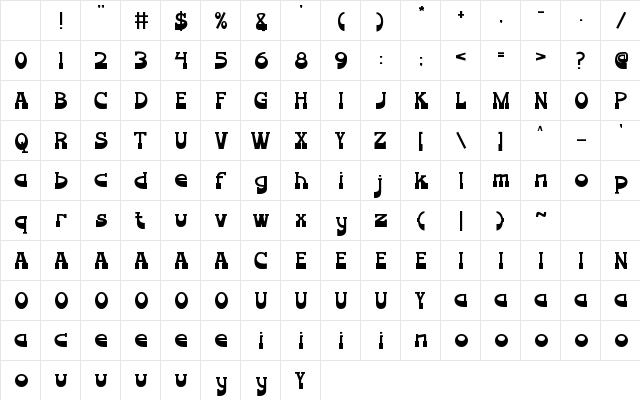
Complete Weighty-Step Regular glyph index. Displaying only characters natively supported by Weighty-Step Regular font.
Weighty-Step is a composed and adaptable typeface that performs quietly and consistently across a wide range of design contexts.